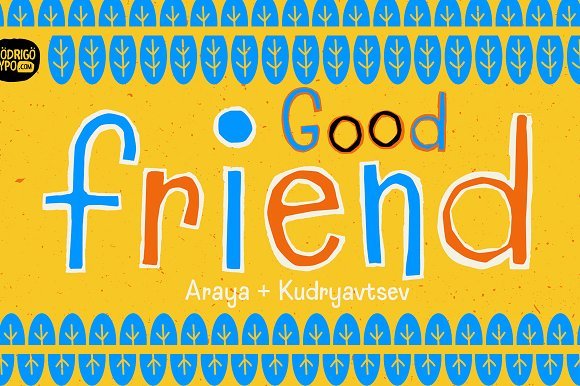
The Perfect Match for Your Next Design Project
Have you ever been brainstorming a new design project, only to have your ideas come together in a perfect harmony of color, texture, and typography? That’s exactly what happened when Rodrigo Typo created the Goodfriend Font, a playful type designed to bring a smile to your face. With its friendly feel and approachable vibe, this font is the perfect match for your next design project.
The Goodfriend Font is more than just a pretty face – it’s a valuable tool for designers looking to add some personality to their work. Whether you’re creating a logo, branding materials, or a website, this font is sure to bring a touch of whimsy and charm to your design. And with its versatility and range of applications, the Goodfriend Font is a must-have for any designer looking to take their work to the next level.
Goodfriend Font Key Features
- Font Family: Goodfriend, Goodfriend Caps, Goodfriend Script
- Font Size: 6,000+ glyphs, 24 styles, 7 weights
- Unique Characteristics: A modern sans-serif font with a friendly feel, suitable for digital and print media, highly legible in various font sizes and resolutions
- Language Support: Supports over 150 languages, including Latin, Cyrillic, Greek, and many more
Designer Review: Goodfriend Font
I recently had the chance to work with the Goodfriend Font, and I must say it’s a unique and intriguing addition to my design toolkit. ✨ Here are a few things that stood out to me:
- ✨ The font’s quirky, handwritten feel adds a touch of personality to any project.
- ✨ The font’s versatility makes it suitable for a wide range of applications, from branding and advertising to editorial and web design.
- ✨ The font’s irregularities and imperfections give it a certain charm and character.
However, as with any font, there are some limitations to consider: ⚠️
- ⚠️ The font’s irregularities can also make it difficult to read in certain situations, particularly at smaller font sizes.
- ⚠️ The font’s limited character set may require additional font stacking or manipulation in some cases.
Overall, I’d say the Goodfriend Font is a great choice for designers looking to add some personality and whimsy to their projects. While it may not be suitable for every application, it’s definitely worth considering for the right project.
Tips for Getting the Most Out of Goodfriend Font
Use Goodfriend Font for headings and titles to add a touch of elegance and sophistication.
Combine Goodfriend Font with other fonts for a unique and eye-catching design.
Experiment with different font sizes and styles to create visual interest and hierarchy in your design.
Use Goodfriend Font for:
Business cards and marketing materials
Alternatives to Goodfriend Font for Designers
Lato is a modern sans-serif typeface designed by Łukasz Dziedzic. It is highly legible and versatile, making it suitable for a wide range of applications, including headlines, body text, and display typography.
Lato is more modern and sleek compared to Goodfriend Font, which has a more classic feel. It is ideal for use in digital products, such as websites and mobile apps.
Montserrat is a geometric sans-serif typeface designed by Julieta Ulanovsky. It is highly condensed and versatile, making it suitable for use in urban and modern settings.
Montserrat is more condensed and has a more modern feel compared to Goodfriend Font, which has a more classic feel. It is ideal for use in headlines and titles, particularly in urban and modern contexts.
Avenir Font
Avenir is a geometric sans-serif typeface designed by Adrian Frutiger. It is highly legible and versatile, making it suitable for use in a wide range of applications, including body text and display typography.